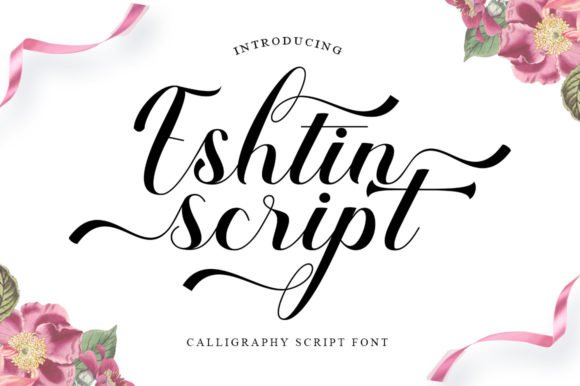
Discover the Timeless Elegance of Eshtin Script Font
As I sit at my desk, surrounded by scribbled notes and half-finished designs, I often find myself lost in the world of typography. There’s something about the way a well-crafted font can elevate a message, making it feel more personal and meaningful. And that’s exactly what drew me to the Eshtin Script Font – its elegant, contemporary design has a way of making even the simplest words feel like a work of art.
Designed with the perfect blend of classic calligraphy and modern style, the Eshtin Script Font is the perfect addition to any designer’s toolkit. With its PUA encoding, you can easily access all of the glyphs and swashes, giving you the freedom to create truly unique and eye-catching designs. Whether you’re a seasoned pro or just starting out, the Eshtin Script Font is a valuable asset that’s sure to elevate your work.
- Unique Characteristics: Elegant, cursive script with a modern twist, featuring connected letters and subtle flourishes
Eshtin Script Font Review
As a designer, I was excited to try out the Eshtin Script Font. Here’s my honest review:
- The Eshtin Script Font has a beautiful, elegant feel to it. It’s perfect for creating a high-end, luxurious look.
- The font is highly legible, even at smaller sizes, making it ideal for body text or small print.
- The font’s script style is consistent throughout, which is great for maintaining a cohesive look in your designs.
- The font supports a wide range of languages, including many non-Latin scripts, making it a great option for international projects.
- The font may be a bit too ornate for some designs, especially those that require a more modern or minimalist look.
- The font’s script style can be difficult to read in certain contexts, such as in very small sizes or when used as a headline.
- The font is not suitable for digital displays, such as screens or mobile devices, as it may not render well in certain resolutions or font sizes.
Overall, I think the Eshtin Script Font is a great choice for designers who want to add a touch of elegance and sophistication to their projects. However, it may not be the best option for every design, and it’s worth considering the limitations before making a final decision.
Tips for Getting the Most Out of Eshtin Script Font
To get the most out of the Eshtin Script font, use it sparingly to create a focal point in your design. Pair it with a clean sans-serif font for maximum contrast. Experiment with different font sizes and colors to create visual interest.
The Eshtin Script font is ideal for creating elegant and sophisticated designs. Use it for wedding invitations, branding materials, and other high-end marketing materials. Its flowing script style is also perfect for creating hand-lettered quotes or phrases.
Alternatives to Eshtin Script Font for Designers
Beth Ellen Script
Beth Ellen Script is a beautiful, elegant script font perfect for creating a sophisticated and refined look. It features connected letters, making it ideal for headings, titles, and other display text. Use it for high-end branding, luxury products, or wedding invitations.
Compared to Eshtin Script Font, Beth Ellen Script has a more refined and polished feel, making it suitable for formal occasions. While Eshtin Script Font has a more playful and whimsical touch, Beth Ellen Script is more serious and elegant.
Great Vibes Script
Great Vibes Script is a modern and stylish script font that’s perfect for creating a fun and energetic vibe. It features a mix of connected and disconnected letters, making it versatile for various design applications. Use it for social media graphics, advertising, or packaging.
Compared to Eshtin Script Font, Great Vibes Script has a more modern and edgy feel, making it suitable for younger audiences and trendy designs. While Eshtin Script Font has a more classic and timeless look, Great Vibes Script is more contemporary and dynamic.
The recommended line spacing for Eshtin Script Font is between 1.2-1.5 times the font size. This will help maintain readability and prevent the text from becoming too crowded or difficult to read.